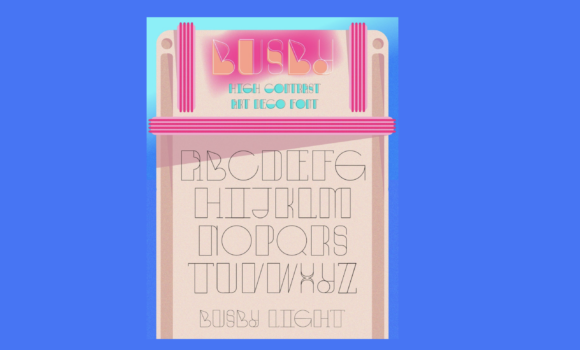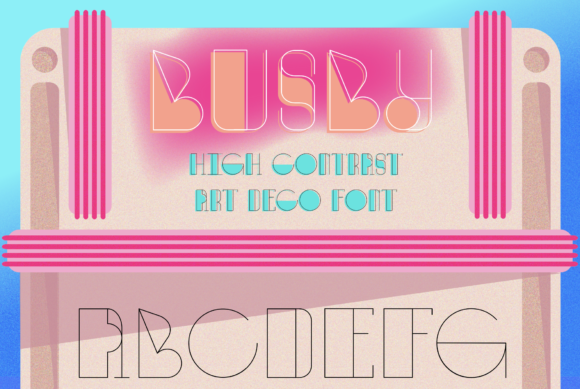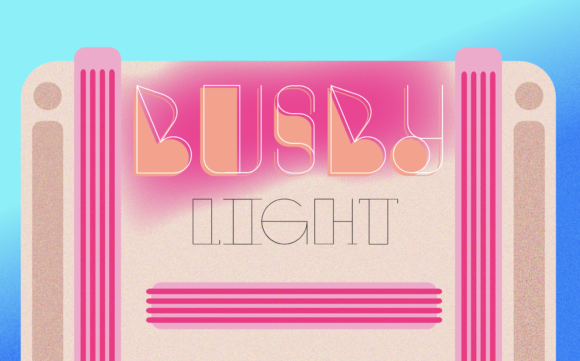
Introducing Busby Light Font: Elevate Your Designs with a Retro Twist
Are you on the hunt for a font that adds a cool, retro flair to your designs? Look no further than Busby Light Font, a uniquely designed display font that’s perfect for making your projects stand out. In this article, we’ll dive into the features and benefits of Busby Light Font, and explore how it can elevate your designs, whether you’re a seasoned designer or a crafty DIY enthusiast.
What is Busby Light Font?
Busby Light Font is a part of the Busby font family, a collection of fonts designed to bring a touch of nostalgia and playfulness to your designs. Busby Light Font is the lighter version of the Busby font family, offering a more subtle yet still eye-catching alternative for your design projects. With its retro vibe and distinctive character, Busby Light Font is ideal for creating visually appealing designs that capture attention.
Key Features of Busby Light Font
- Unique Design: Busby Light Font boasts a one-of-a-kind design that sets it apart from more traditional fonts. Its retro feel is perfect for designs that require a bit of nostalgia and charm.
- Versatility: This font is incredibly versatile and can be used for a wide range of design projects, including t-shirts, sportswear, logos, advertisements, clothing, and more.
- Easy to Read: Despite its unique design, Busby Light Font remains easy to read, making it suitable for both headlines and body text.
- Scalable: Busby Light Font is designed to look great at any size, from small captions to large headlines.
Use Cases for Busby Light Font
Busby Light Font’s versatility makes it suitable for a variety of design projects. Here are some use cases to get you started:
- T-Shirts and Apparel: Add a retro touch to your t-shirt designs, hoodies, and other apparel with Busby Light Font.
- Logo Design: Create memorable logos for your brand or business with Busby Light Font’s unique and eye-catching design.
- Advertisements: Use Busby Light Font to create attention-grabbing ads that stand out from the crowd.
- Clothing and Fashion: Incorporate Busby Light Font into your clothing and fashion designs to add a touch of personality and style.
Benefits of Using Busby Light Font
So, why choose Busby Light Font for your design projects? Here are just a few benefits:
- Instant Recognition: Busby Light Font’s unique design ensures instant recognition and sets your designs apart from the competition.
- Time-Saving: With Busby Light Font, you can create professional-looking designs in no time, saving you hours of design work.
- Customization: Busby Light Font is easy to customize, allowing you to tailor it to your specific design needs.
Tips for Using Busby Light Font Effectively
To get the most out of Busby Light Font, here are some tips to keep in mind:
- Pair with Other Fonts: Experiment with pairing Busby Light Font with other fonts to create visually appealing combinations.
- Play with Colors: Busby Light Font looks great in a variety of colors, so don’t be afraid to experiment and find the perfect hue for your design.
- Keep it Simple: While Busby Light Font is a statement font, it’s best to keep your design simple and clean to let the font shine.
Busby Light Font is a game-changer for designers and crafters looking to add a retro twist to their designs. With its unique design, versatility, and ease of use, Busby Light Font is the perfect choice for a wide range of design projects. Whether you’re creating t-shirts, logos, advertisements, or clothing, Busby Light Font is sure to elevate your designs and make them stand out from the crowd.